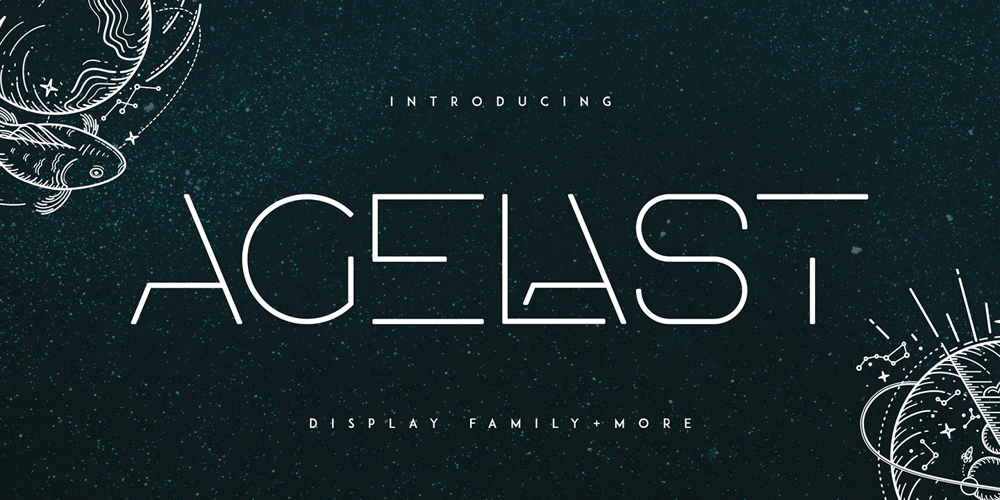
Agelast
Agelast font
Agelast Font Family was designed by Vladimir Fedotov, Plamen Petrov and published by VP Creative Shop. Agelast contains 6 styles and family package options. Introducing Agelast Display FamilyAgelast is clean, futuristic typeface with 6 fonts and multilingual support. It’s a very versatile font that works great in large and small sizes.Agelast is perfect for branding projects, home-ware designs, product packaging, magazine headers – or simply as a stylish text overlay to any background image.· Uppercase, numeral, punctuation & Symbol· Ligatures· Multilingual supportFeel free to contact me if you have any questions!Thank you! Enjoy!c